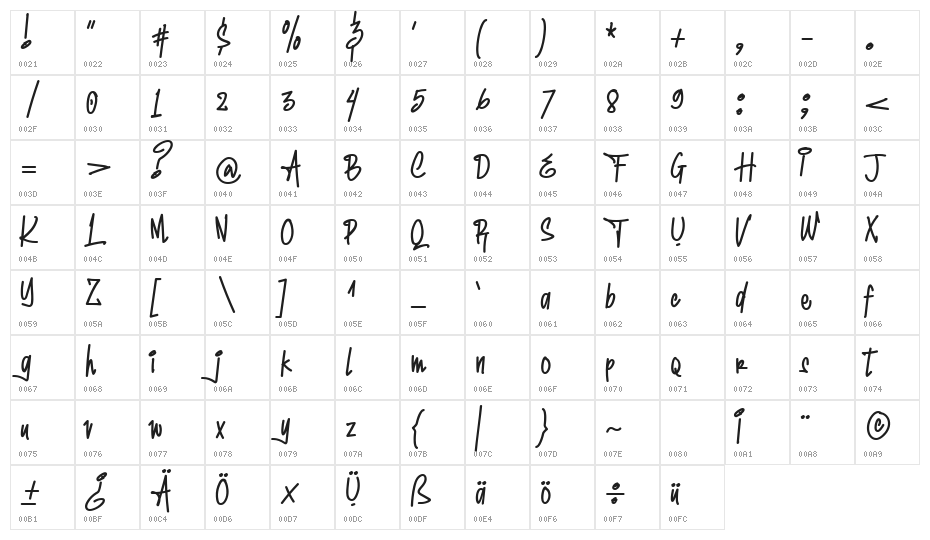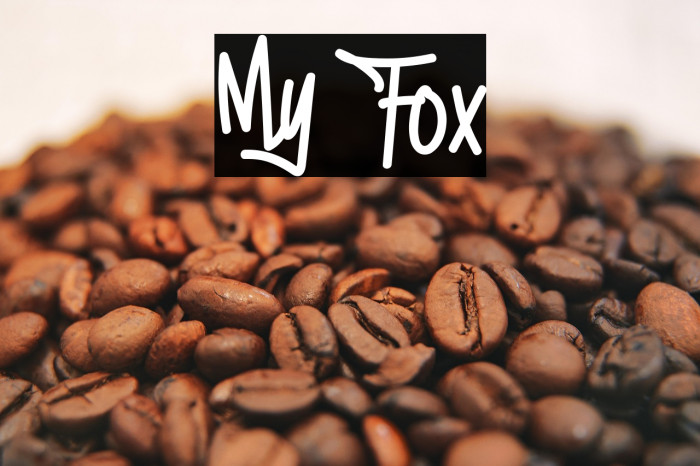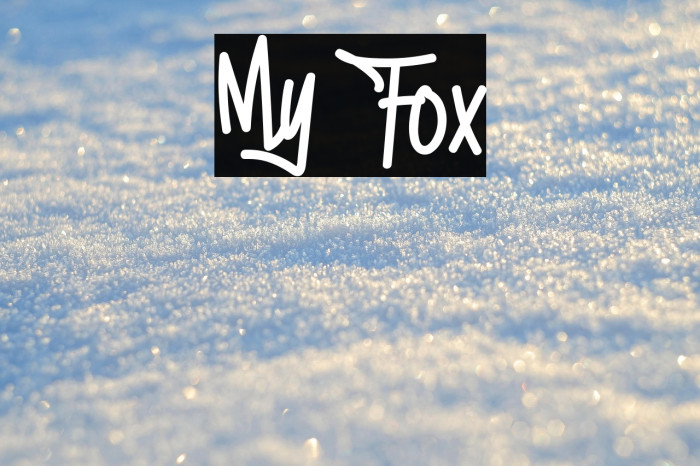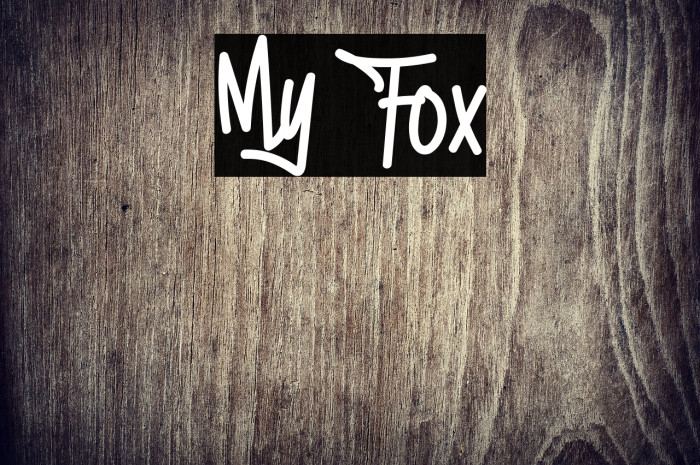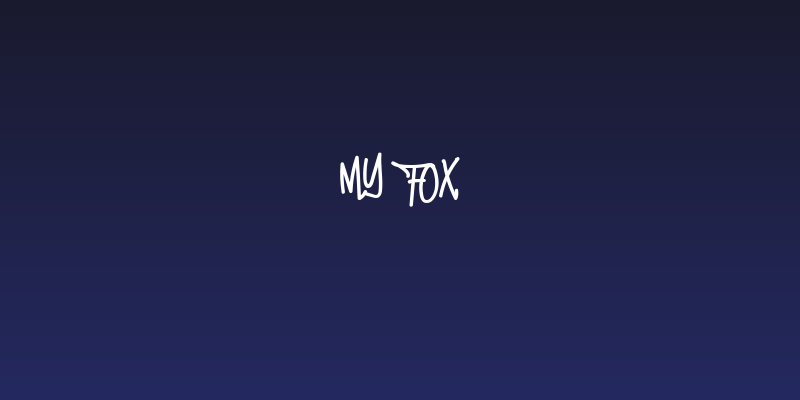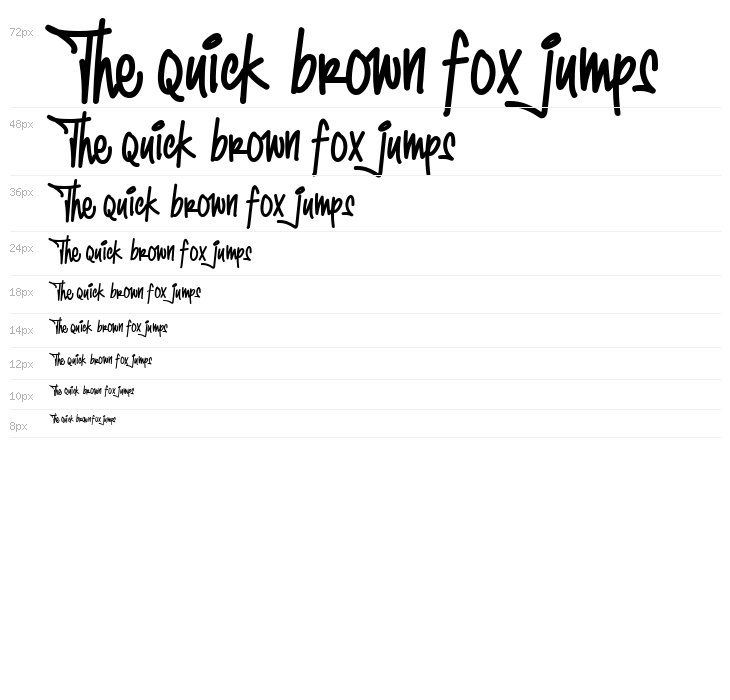
My Fox Font
My Fox Description
This font exhibits a playful and dynamic handwritten style, characterized by its bold and expressive strokes. The letters have a casual and informal appearance, with a slight slant that adds to its energetic feel. The uppercase and lowercase letters maintain a consistent style, with some letters featuring unique, exaggerated loops and curves. The numbers and special characters are equally expressive, matching the overall aesthetic of the alphabet. This font's lively and spontaneous nature makes it suitable for projects that require a personal and creative touch.
| Use Case | Logos, Headlines, Posters |
| Proposed Projects | Ideal for greeting cards, children's books, creative posters, and social media graphics. |